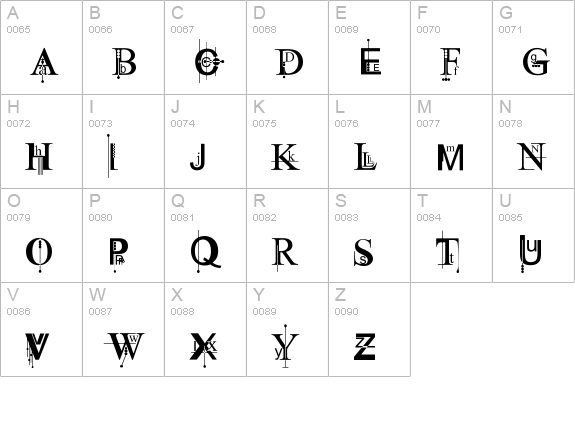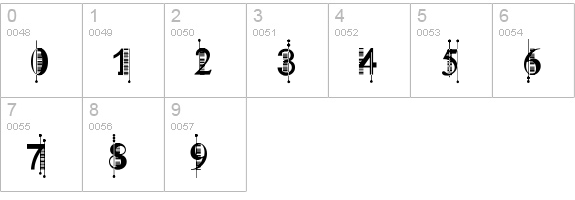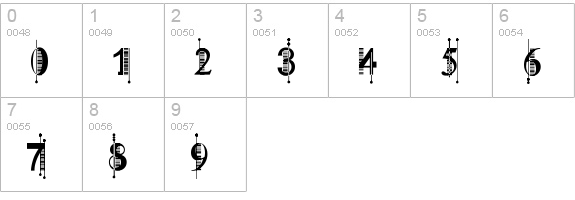
Kingthings Pique'n'meex is a captivating and versatile font that is sure to make a bold statement in any design project. With its unique combination of playful curves and sharp edges, this font strikes the perfect balance between elegance and edginess. Each letter is carefully crafted to exude a sense of individuality and creativity, making it the perfect choice for those looking to add a touch of personality to their work. What sets Kingthings Pique'n'meex apart is not only its stunning design, but also the fact that it is freely available to download. Yes, you heard that right - this incredible font can be yours without spending a dime. Thanks to FontsMarket.com, a leading platform for high-quality fonts, you can easily access and download Kingthings Pique'n'meex with just a few clicks. Whether you are a professional designer, a creative enthusiast, or simply someone looking to add a touch of style to your personal projects, Kingthings Pique'n'meex is a font that will undoubtedly exceed your expectations. Its versatility allows it to seamlessly adapt to a wide range of design styles, making it suitable for everything from logo designs and branding projects to posters, invitations, and more. With Kingthings Pique'n'meex, you have the freedom to explore your creativity without any limitations. So why wait? Head over to FontsMarket.com and get your hands on this incredible font today. Elevate your designs and make a lasting impression with Kingthings Pique'n'meex - the font that combines beauty, uniqueness, and the freedom to create without boundaries.